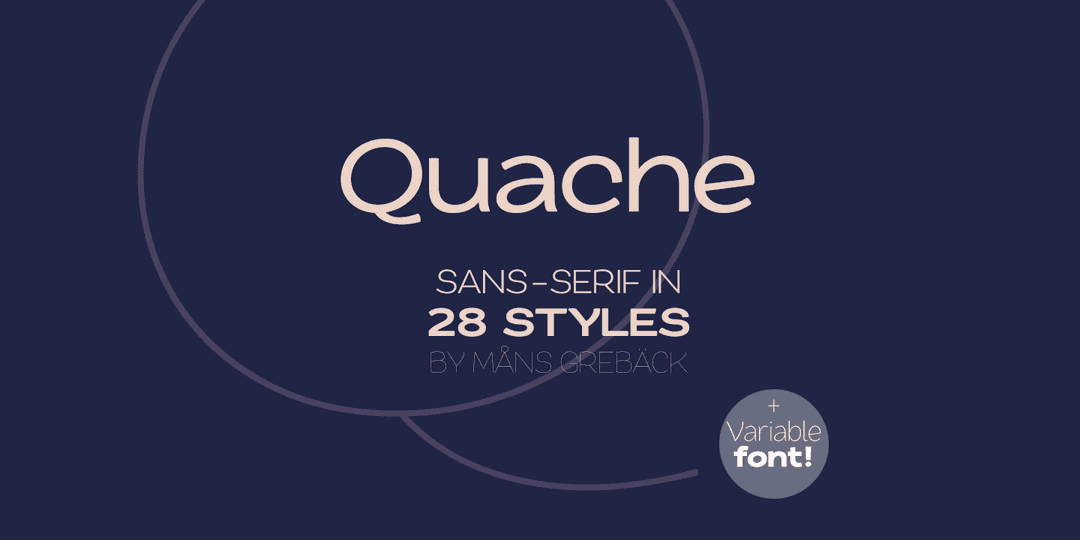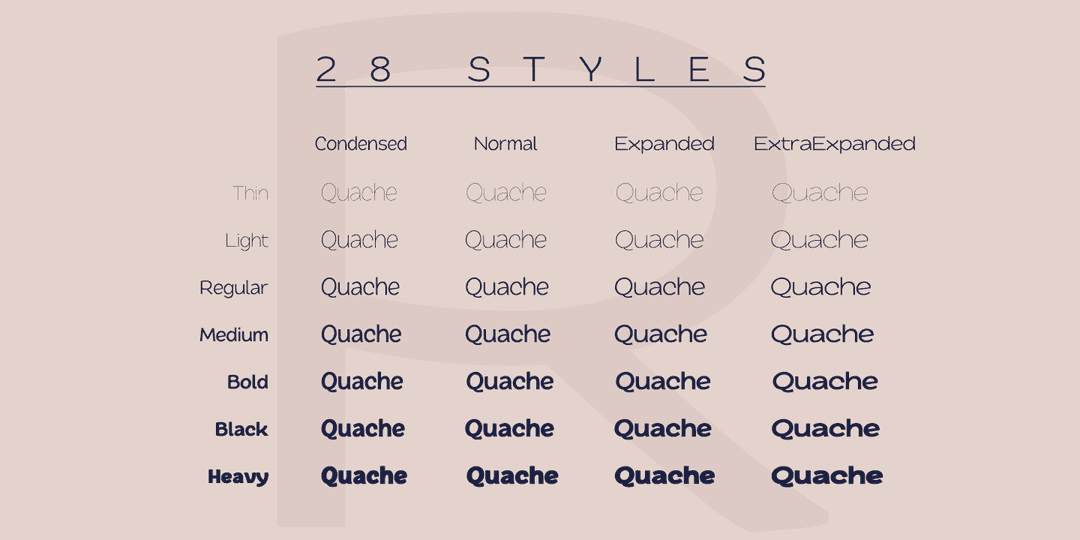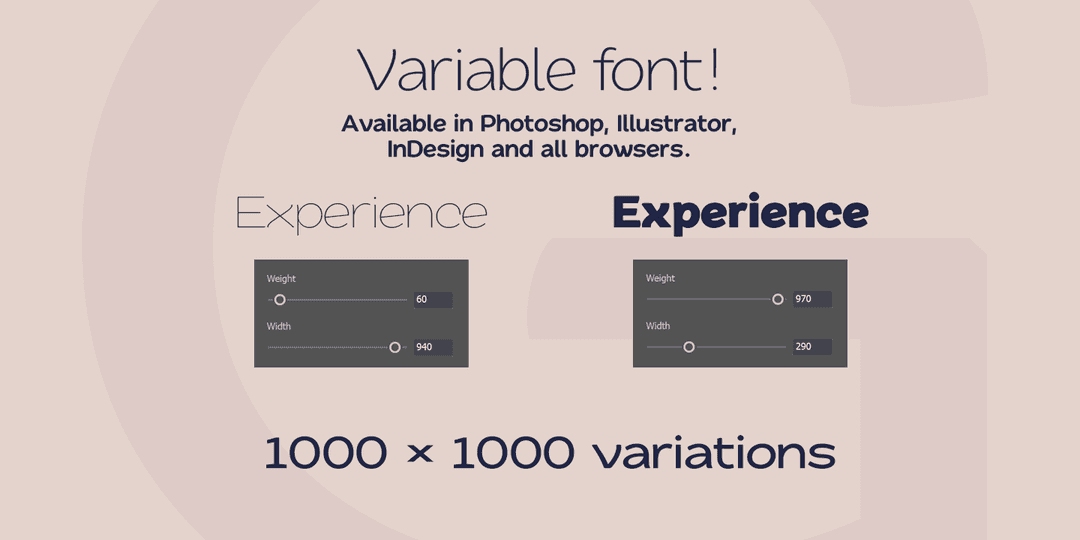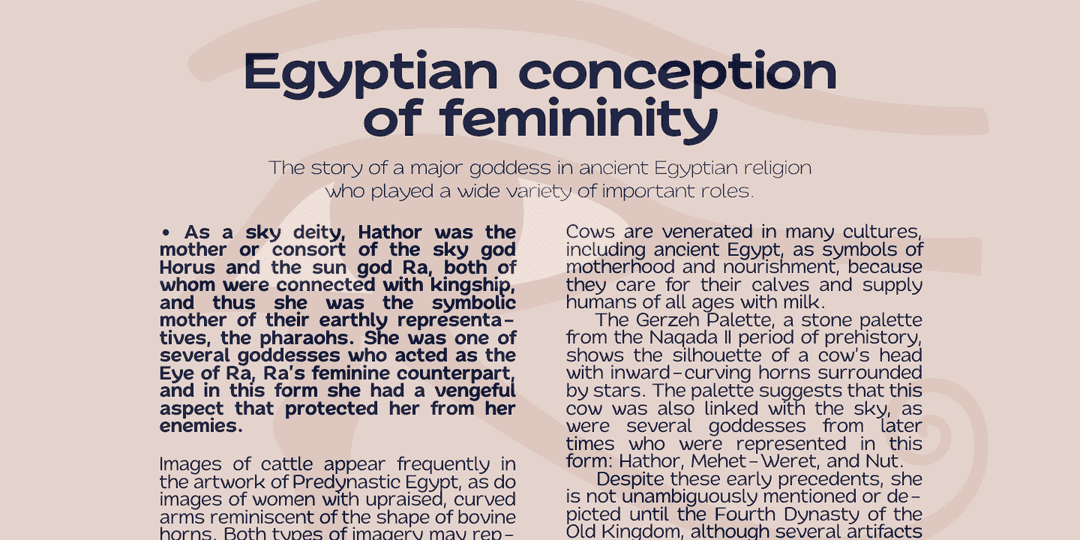
Quache is a highly stylistic sans serif font family with six weights and contemporary sans serif design that would be suitable for web design and logo design.